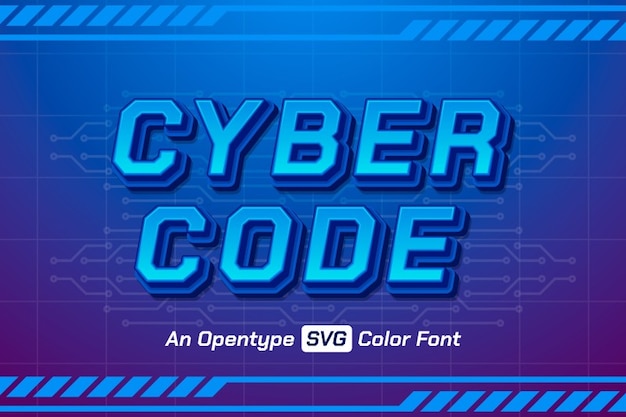
Cyber Code Font
"Cyber Code" is a sleek, tech-inspired font that embodies the essence of futuristic circuits and 3D digital designs. Its sharp, angular letterforms and intricate line details mimic a complex circuit board, creating a high-tech, cyber aesthetic. Ideal for technology branding, digital projects, and sci-fi themes, "Cyber Code" adds a cutting-edge, modern flair to any design.